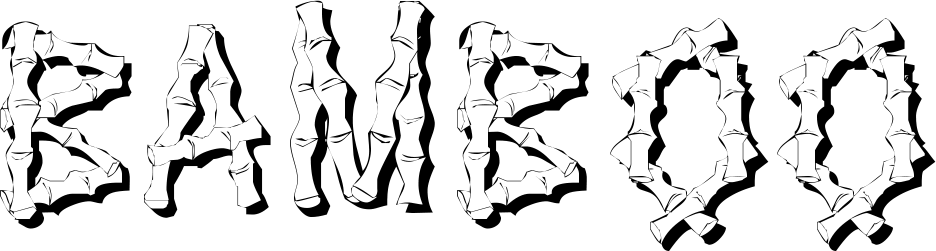
KR Bamboo Font
Break into the design and make a mind-blowing text layout with the help of KR Bamboo. This one is perfect for informal conditions and creates a friendly atmosphere. Just consider that this bamboo font lacks lowercase letters. It’s suitable for children’s programs, plant-related businesses, logos, and whatnot. It’s worth a shot don’t you agree? Click on the download button and enjoy.